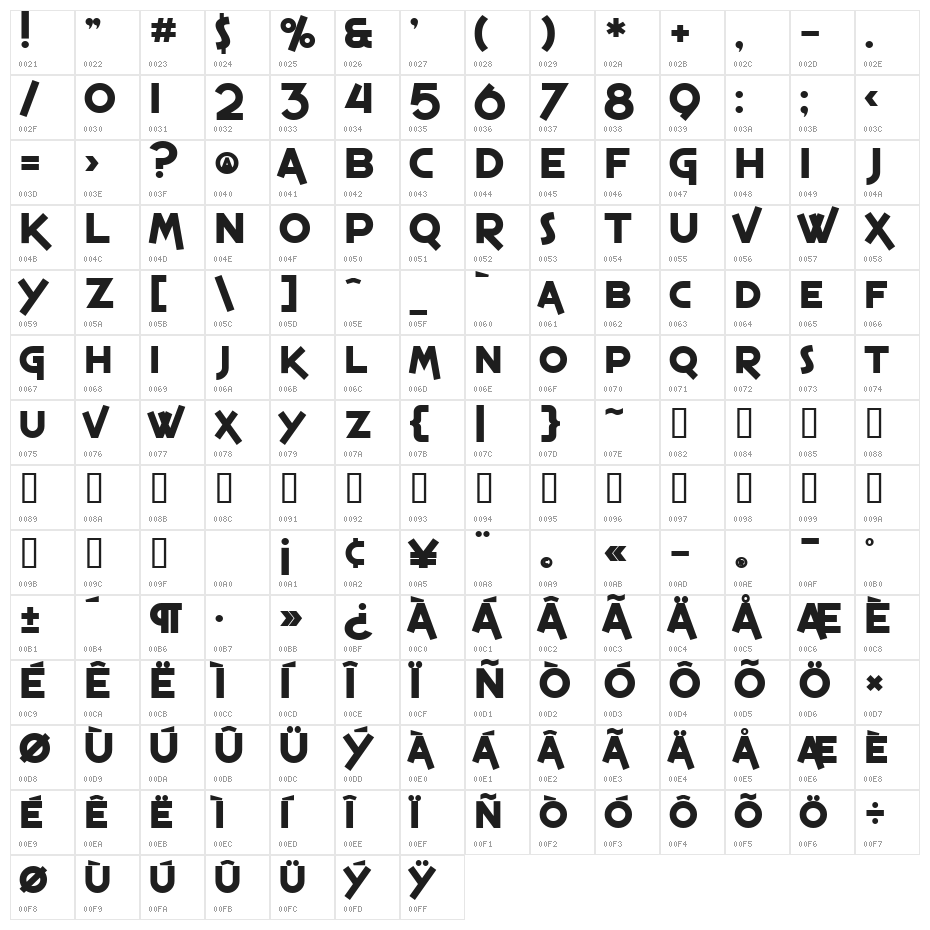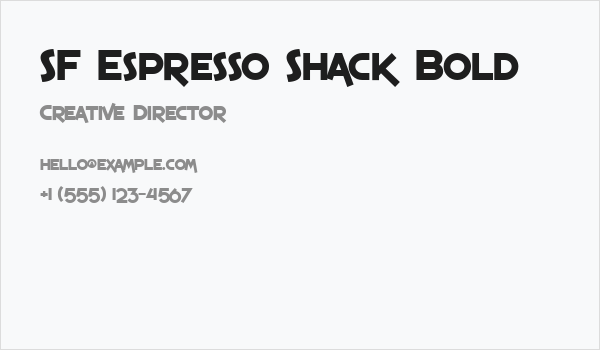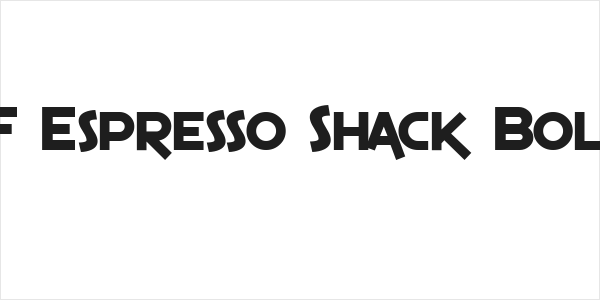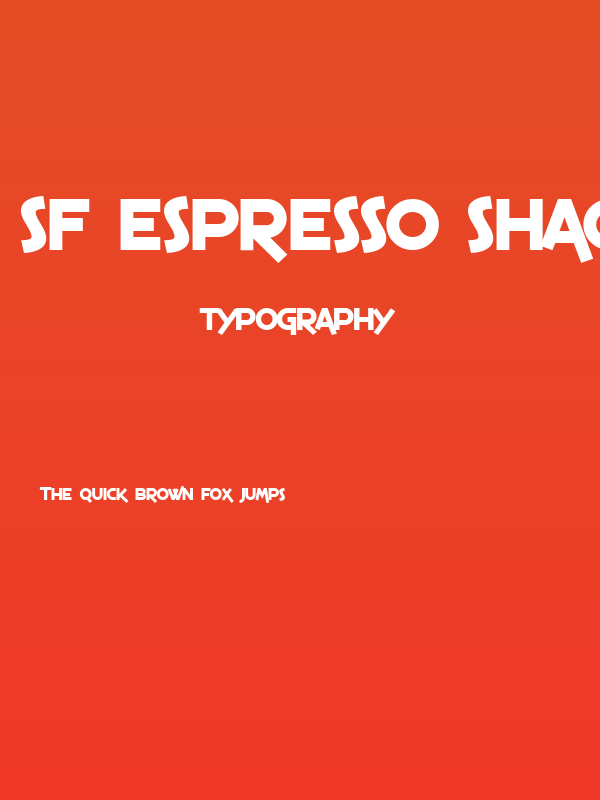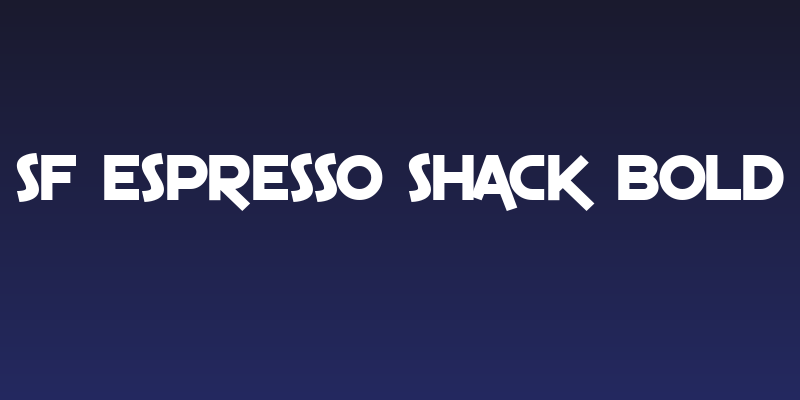
SF Espresso Shack Bold Font
SF Espresso Shack Bold Description
This bold, decorative font features strong geometric shapes with a playful twist. The characters are designed with sharp angles and a consistent stroke width, giving them a robust and impactful appearance. The uppercase letters are particularly striking, with unique design elements that add a sense of movement and energy. The numbers and special characters maintain the same bold style, ensuring a cohesive look across all text elements. This font is perfect for making a statement and capturing attention with its dynamic and modern aesthetic.
Proposed ProjectsIdeal for branding, posters, headlines, and any project needing a bold, eye-catching typeface.